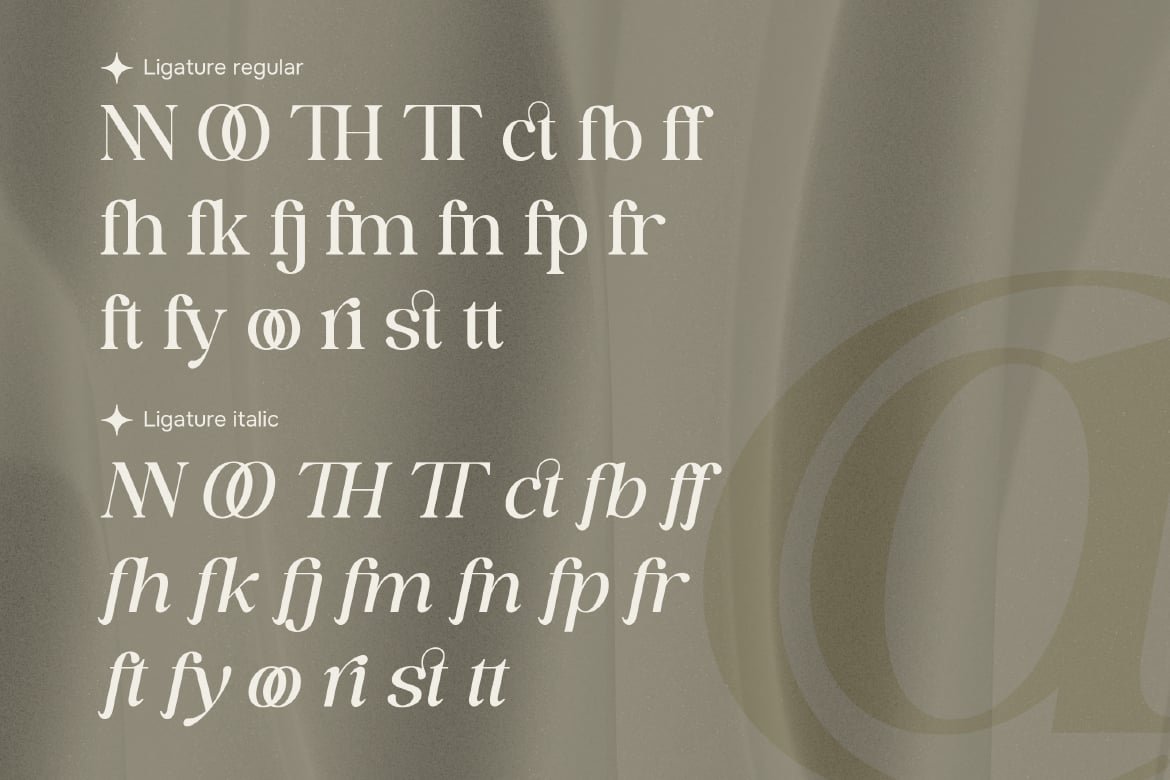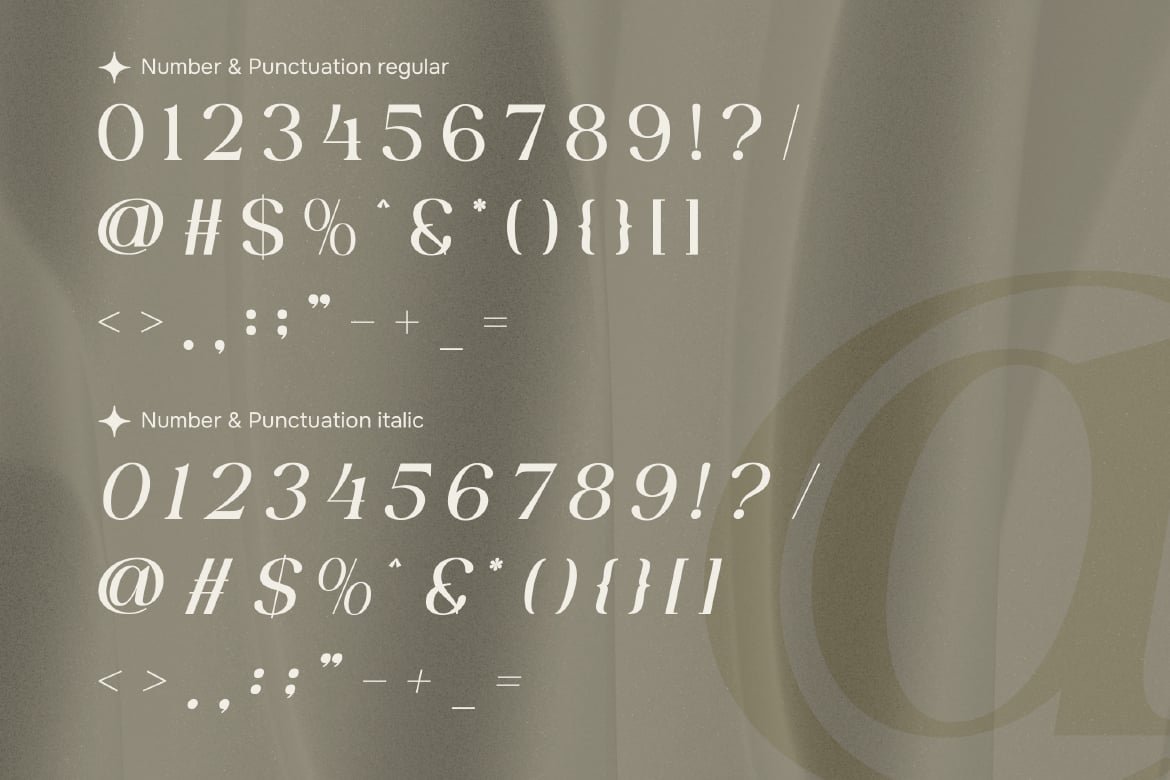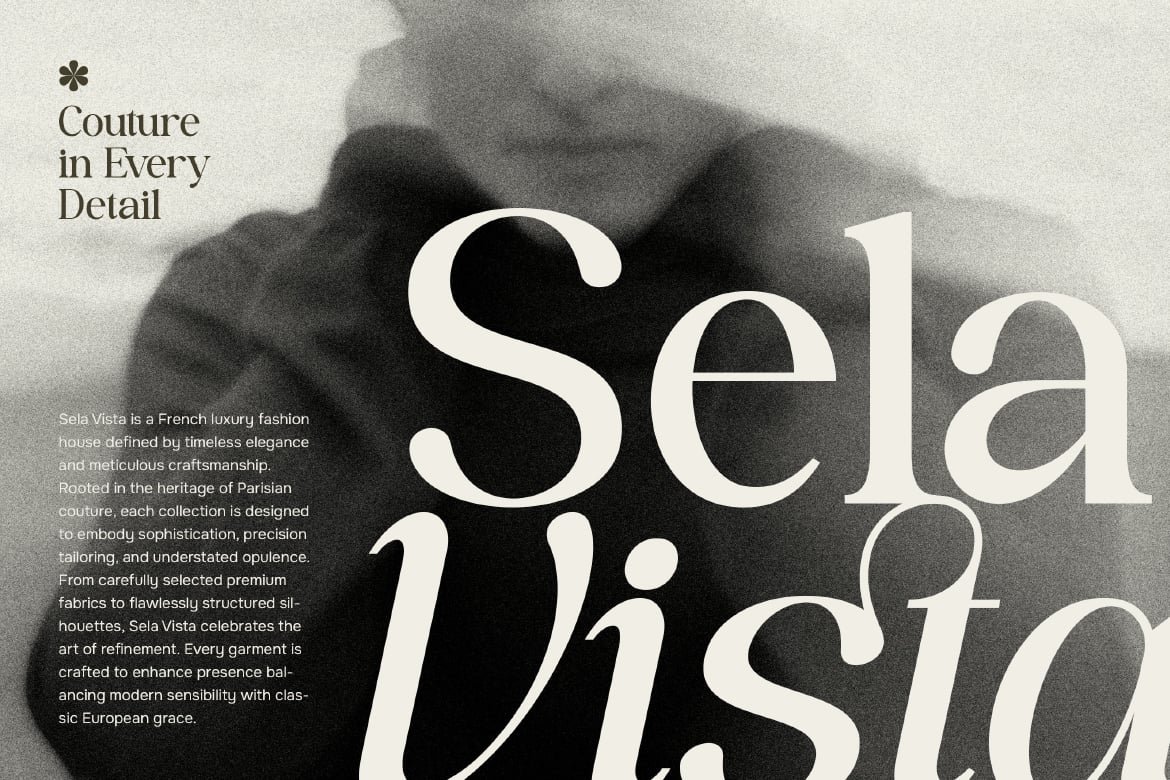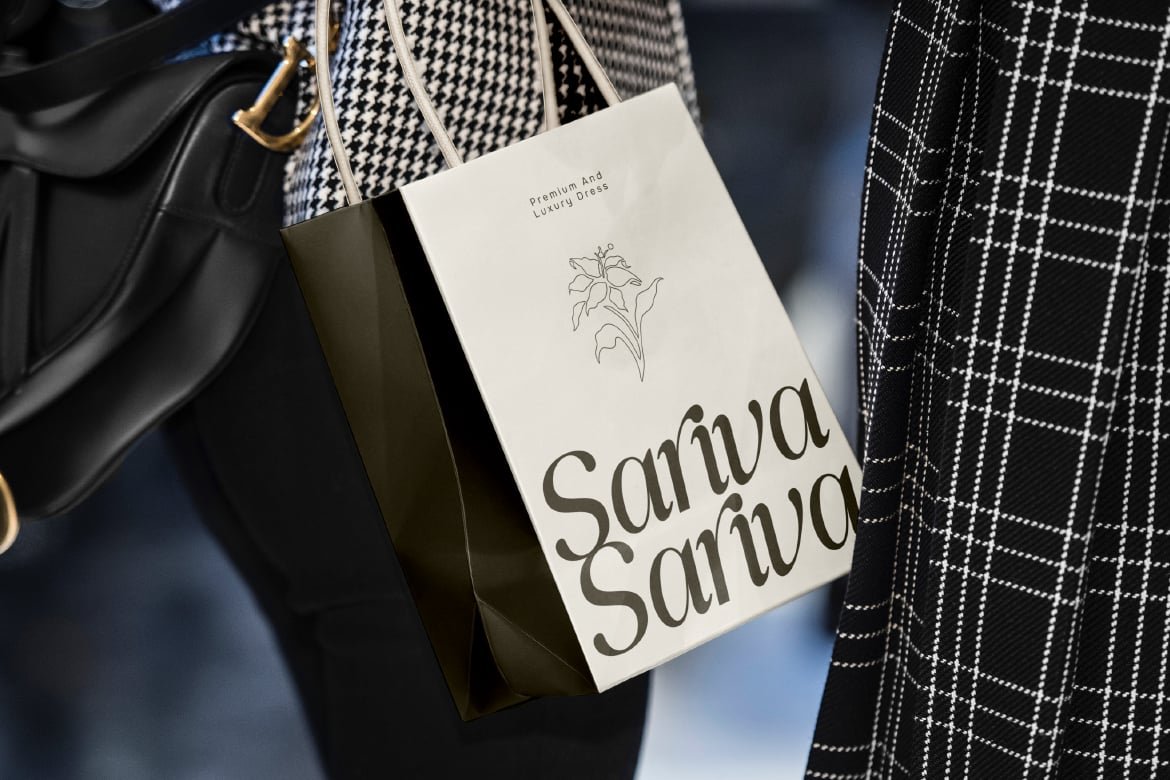
Beautiful Retro Serif Font – Alera Blues
Alera Blues is a beautiful retro serif font that blends vintage charm with a luxury and elegant visual style. Designed with graceful curves and refined serif details, this typeface captures a timeless aesthetic while maintaining a rich and sophisticated presence. Its distinctive retro character brings warmth and personality, making every design feel both classic and elevated. This font comes in both Regular and Italic styles, giving you more flexibility to create contrast, emphasis, and elegant typographic. With its balanced proportions and stylish letterforms, Alera Blues delivers a smooth harmony.
Who Should Use Alera Blues?
Alera Blues is perfect for designers, creatives, and brands who want to express a sense of beauty, elegance, and luxury with a retro touch. Itβs especially suited for projects that require a refined and timeless visual identity with a strong character.
Luxury and vintage branding
Elegant logo design
Beauty and fashion projects
Premium packaging design
Wedding invitations and stationery
Editorial and magazine layouts
Social media visuals
Posters and promotional materials
Stylish quotes and typography